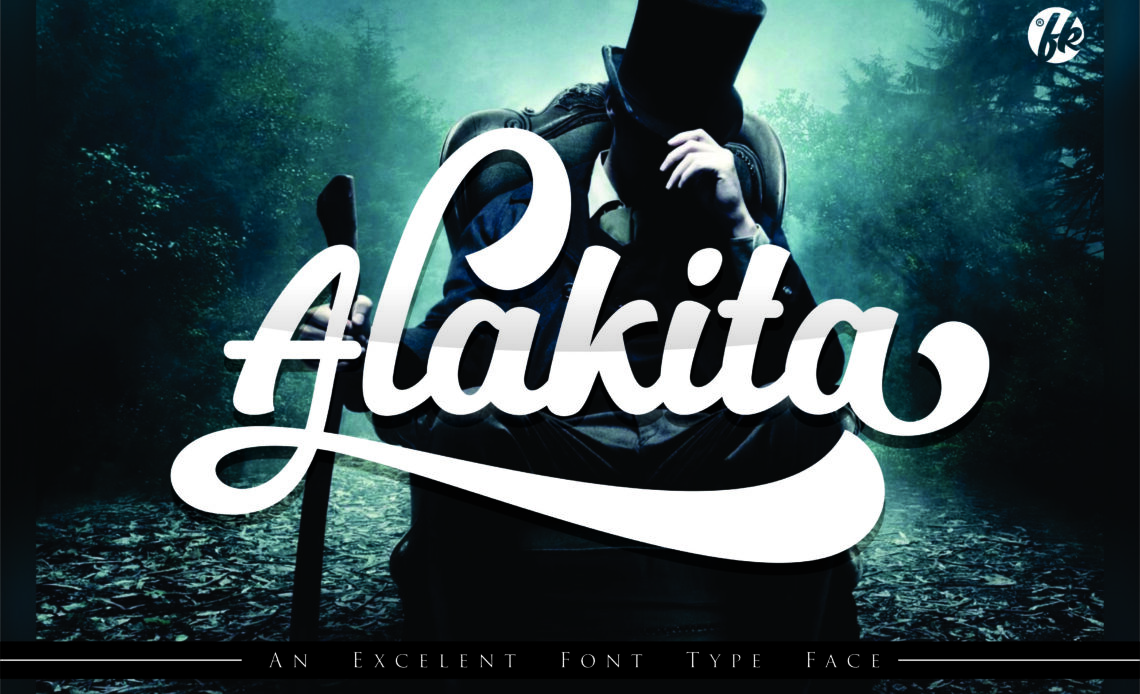
In a digital world brimming with monotony, stand out with Alakita, a script font that awakens your designs from slumber. This breathtaking creation by afredo.fk is not just a font; it's an artistic expression that dances across the screen, leaving an unforgettable imprint on your audience.
Alakita isn't just another font; it's an experience. Its exquisite curves and elegant lines flow with grace, evoking a sense of luxury and sophistication that elevates your designs to new heights. With Alakita, you'll capture attention, ignite emotions, and create lasting impressions that linger long after the page is closed.
Unleash the boundless potential of Alakita's versatility. Whether you're crafting stunning logos that demand attention or weaving enchanting stories through captivating headlines, Alakita adapts seamlessly to your vision. Its multiple glyph options per character provide endless opportunities for customization, empowering you to tailor your typography to perfection.
Alakita is more than just a tool; it's an extension of your creativity. Its captivating charm breathes life into your projects, adding a personal touch that resonates with your audience. Let Alakita be the muse that inspires your designs, guiding you towards masterpieces that captivate and enchant.
Don't settle for ordinary fonts that fade into the background. Embrace the allure of Alakita, a script font that commands attention and leaves an indelible mark on the digital landscape. Your designs deserve the best, and Alakita delivers nothing less. Download Alakita today and embark on a typographic journey that will transform your creative endeavors into works of art.